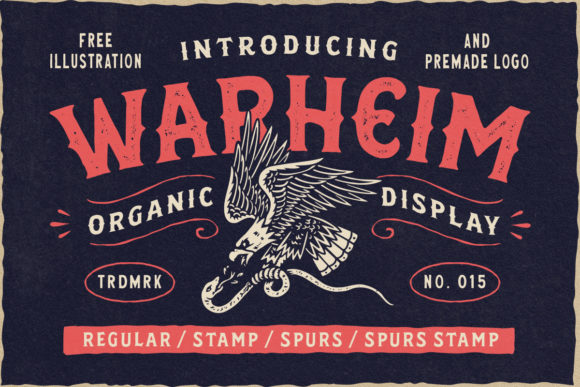
Behold, typography enthusiasts and creative visionaries, the Warheim Font, a masterpiece of display lettering that will ignite your imagination and transform your designs into captivating works of art. Journey with us as we unveil the secrets of this bold and thick lettered font, a creation of the renowned ironbirdcreative.
Warheim Font is not merely a font; it's an experience, an expression of individuality that empowers you to make a statement with every word you type. Its bold strokes and thick lines command attention, demanding to be seen and remembered. Whether you're crafting posters that shout from the streets or designing logos that leave an indelible mark, Warheim Font is your ultimate weapon.
Unleash the boundless creativity within you and explore the infinite possibilities that await. Create posters that ignite passion, evoke emotions, and leave an everlasting impression on your audience. Let Warheim Font amplify your message, making it resonate with power and authority. Its bold presence will captivate your readers, drawing them into your world of ideas and captivating them with every stroke.
But Warheim Font's versatility extends far beyond posters. Its bold style adds a touch of drama to headlines, making them impossible to ignore. Imagine website titles that leap off the screen, grabbing visitors' attention and compelling them to delve deeper into your content. Unleash your creativity and watch as Warheim Font transforms your designs into masterpieces that leave a lasting impact.
Explore the realm of branding and harness the power of Warheim Font to forge an identity that stands out from the crowd. Create logos that radiate strength, stability, and unwavering confidence. Let Warheim Font be the cornerstone of your brand's visual identity, a symbol of resilience and determination that speaks volumes about your values and aspirations.
With Warheim Font, you're not just downloading a font; you're investing in a tool that will elevate your designs to new heights. Experience the joy of effortlessly creating captivating posters, impactful headlines, and unforgettable logos. Let Warheim Font be your guide as you embark on a journey of creative expression, leaving a trail of awe-inspiring designs in your wake.